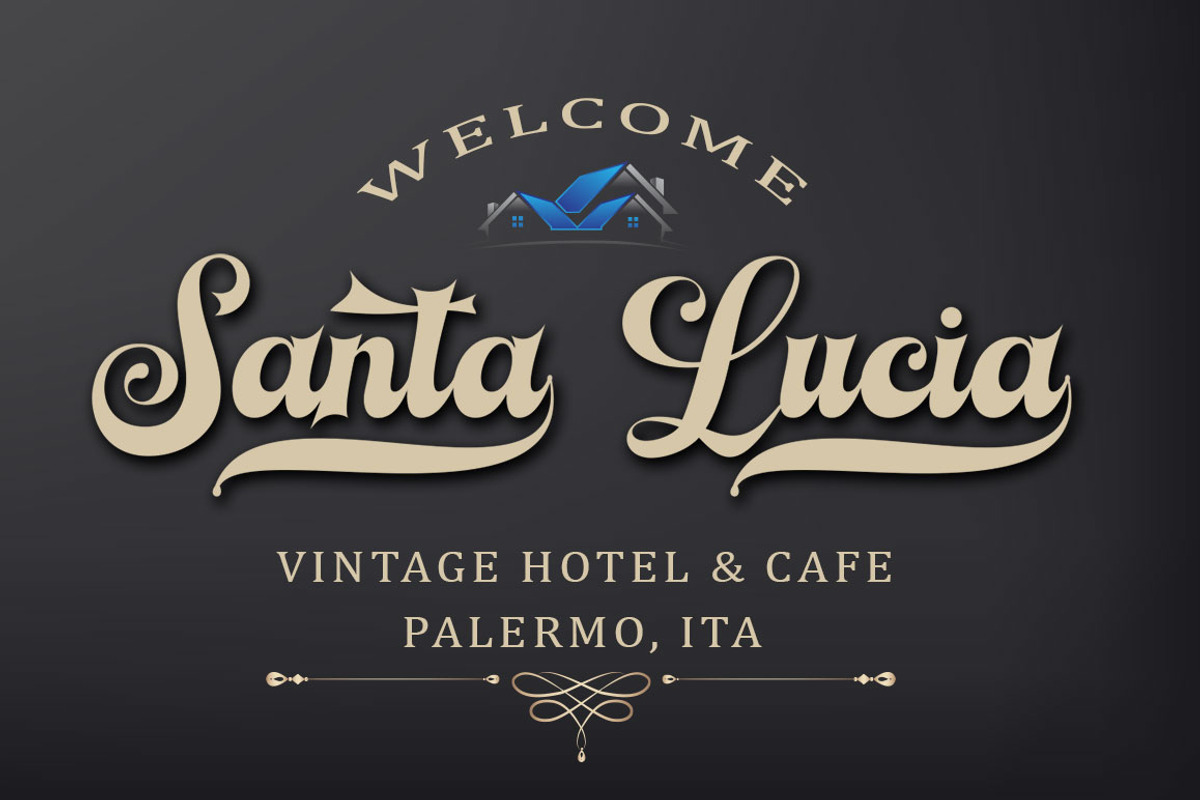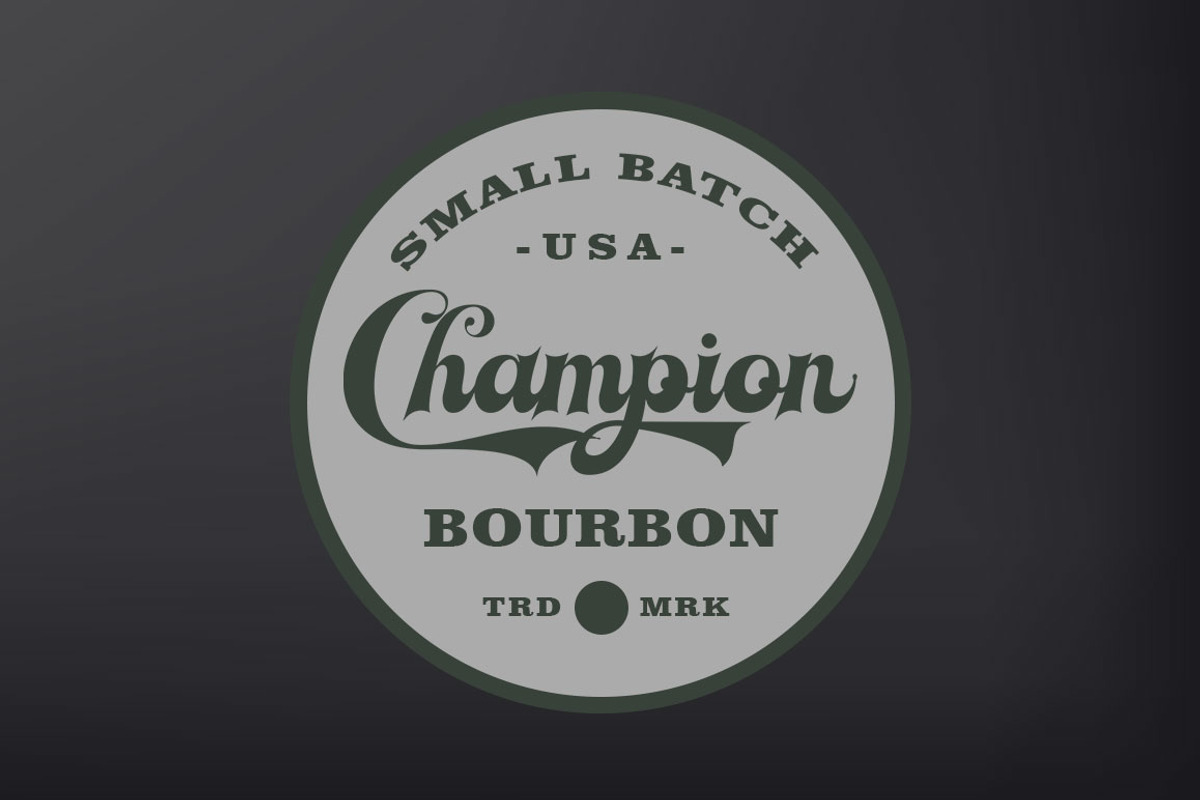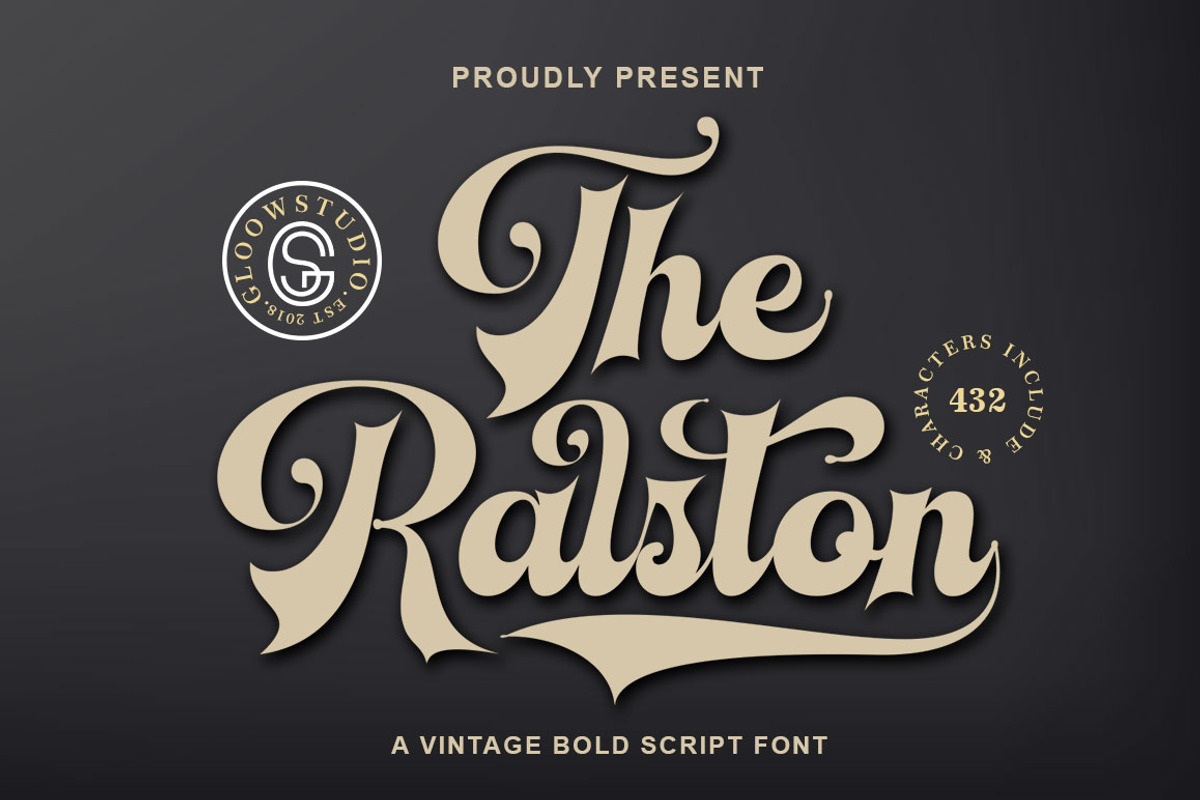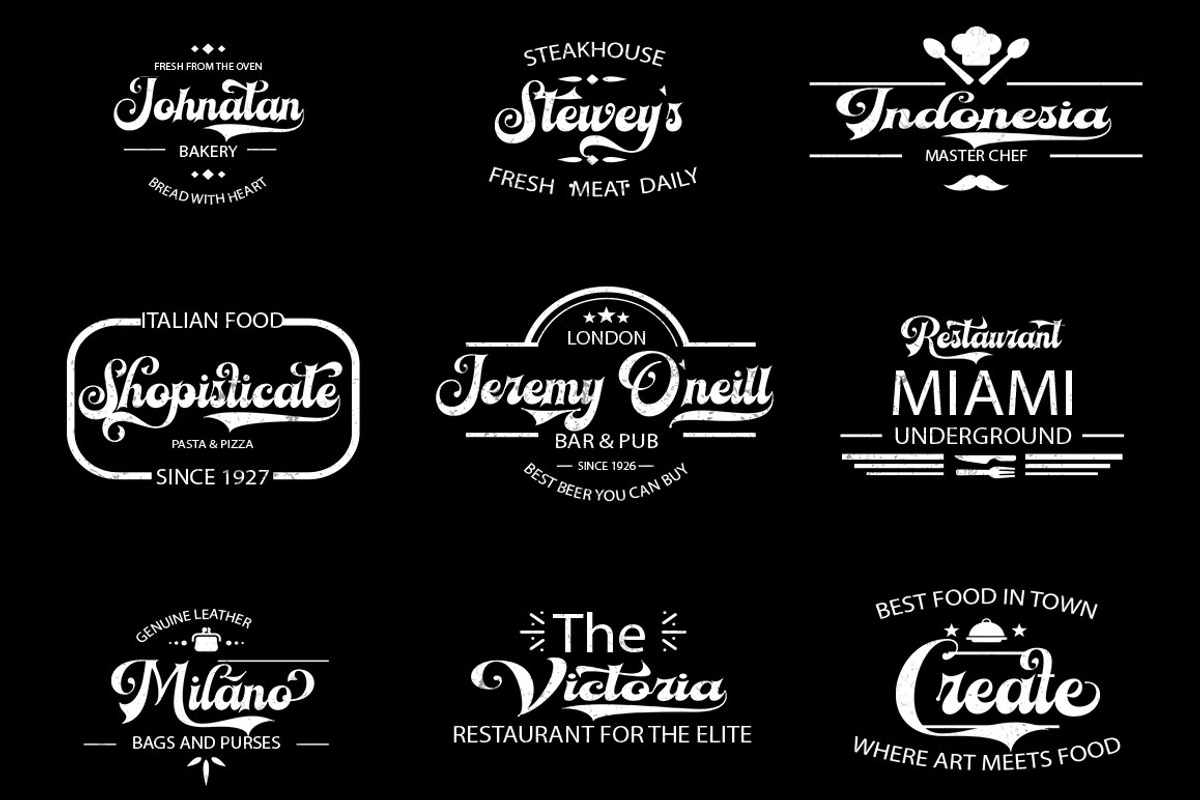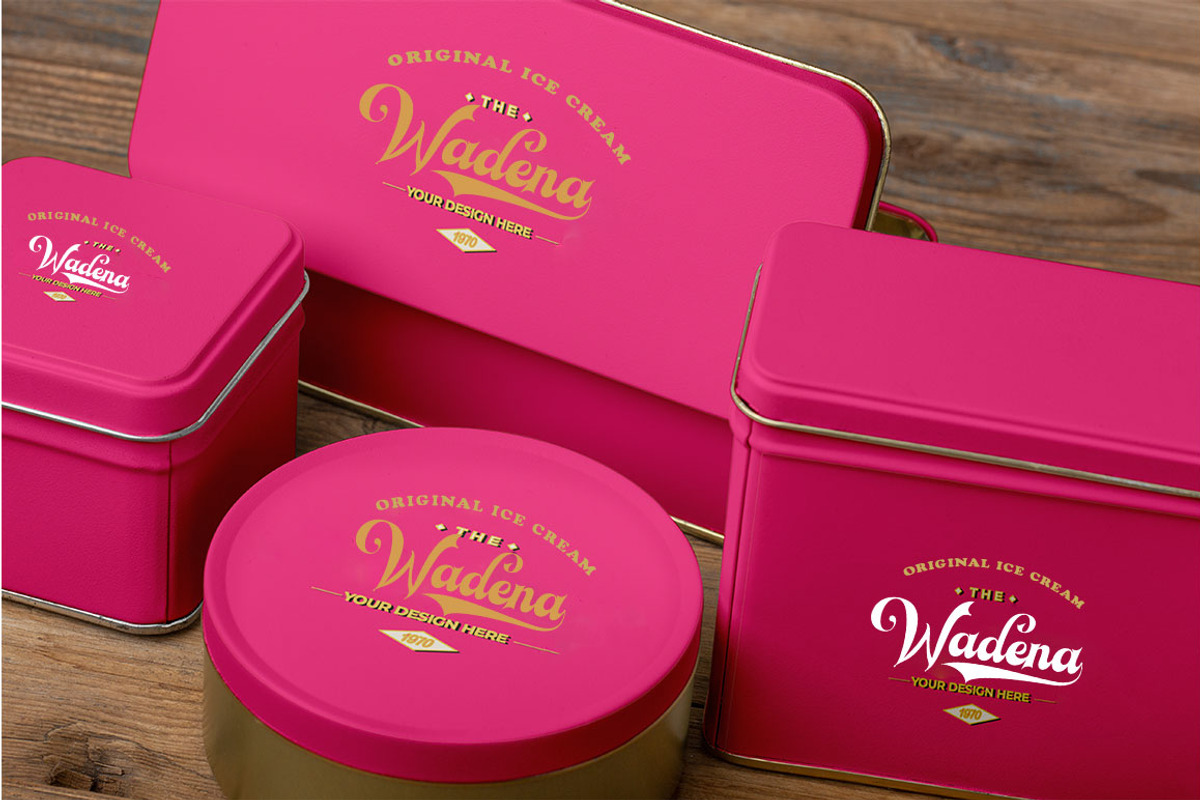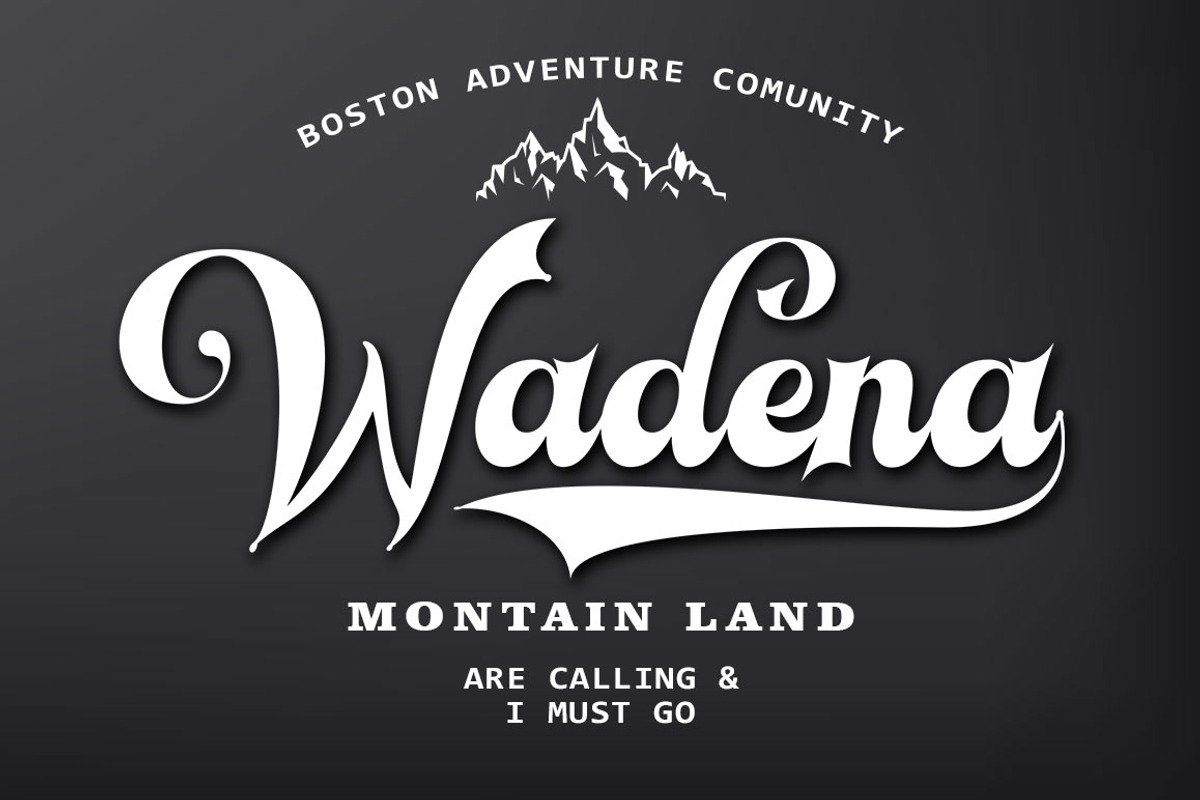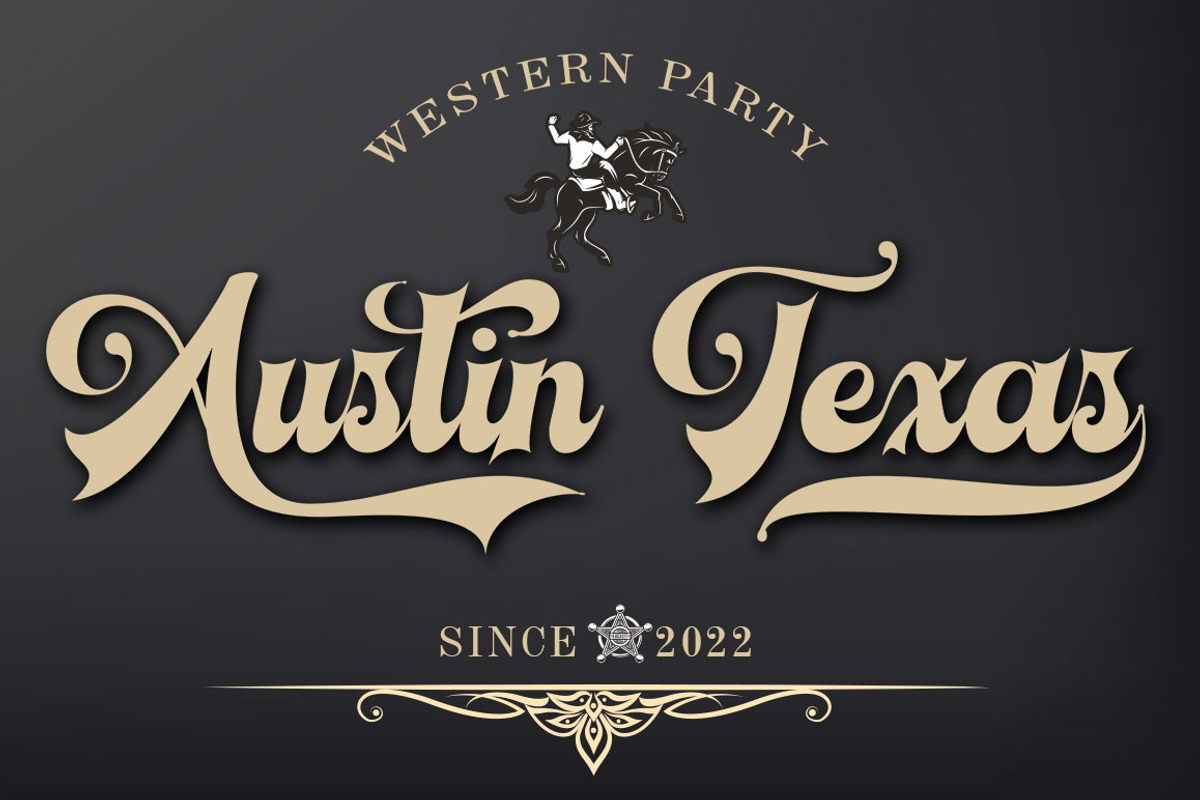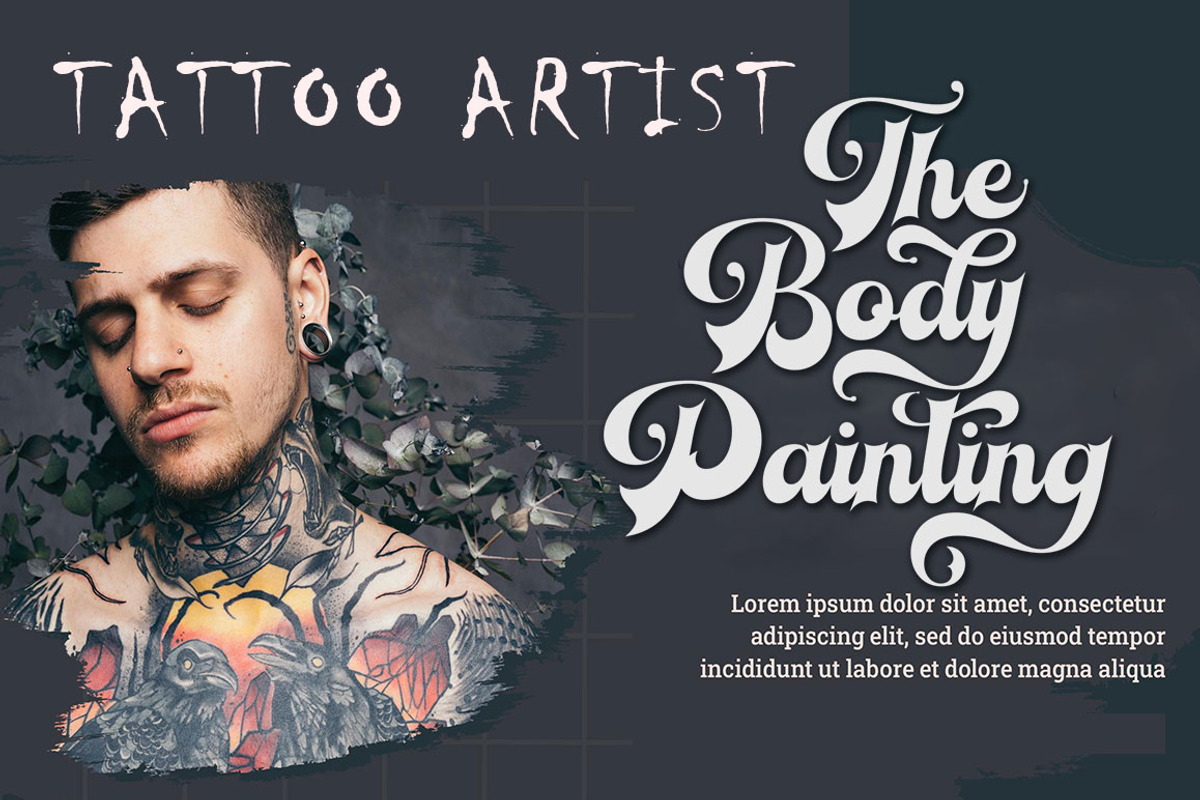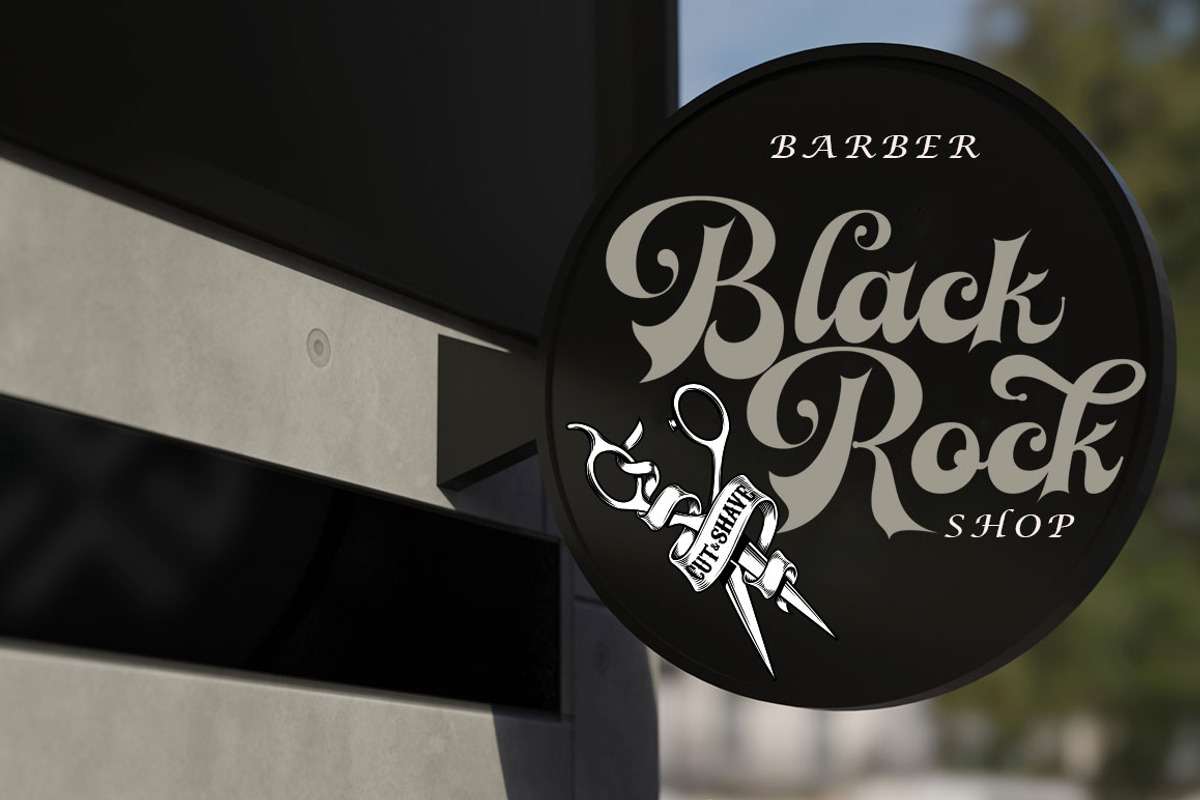
The Ralston
Introducing The Ralston, A Retro Bold Script font. It was inspired by retro typography designs in 70's. There are more than 432 glyphs in this font including Multilanguage Support. OpenType features with Stylistic Alternates, Contextual Alternate and ligatures in some characters that allows you to mix and match pairs of letters to fit your design.
The Ralston is perfectly suitable for made to be applied especially in logo, and the other various formal forms such as invitations, labels, logos, magazines, books, greeting / wedding cards, packaging, fashion, make up, stationery, novels, labels or any type of advertising purpose.